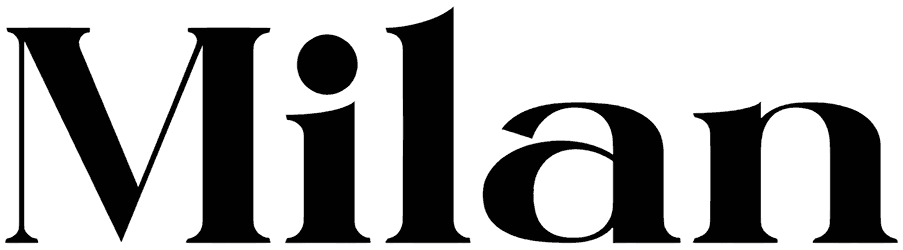
Milan Font
Milan is a simple and powerful font that has a classic look and can make your designs look stronger. Modern designers can use this fashion font to recreate old works with more quality in a way that makes them look fun, fresh, and professional.
The high legibility means that you can use it in the form of websites, posters, advertisements, books, and magazines. So, to create a simple and powerful aesthetic, ignore the absence of numbers and adopt this serif font.
Milan is a package that will makes you super happy. We offer you a very best choice to coloring your branding or project. With this family you will get many options of weight to maximize your designs with stylish fonts. This serif font family made in uppercase and lowercase that easy on the eyes and nice to look while it’s also easy to read. The font is an excellent choice to ensure a great font match for your designs and projects! It also perfect to create amazing headings, logos, menus, social media graphics, and many more.What’s included Milan (OTF, TTF, WOFF) :
• Thin
• Extra Light
• Light
• Regular
• Medium
• Semi Bold
• BoldFeatures include: